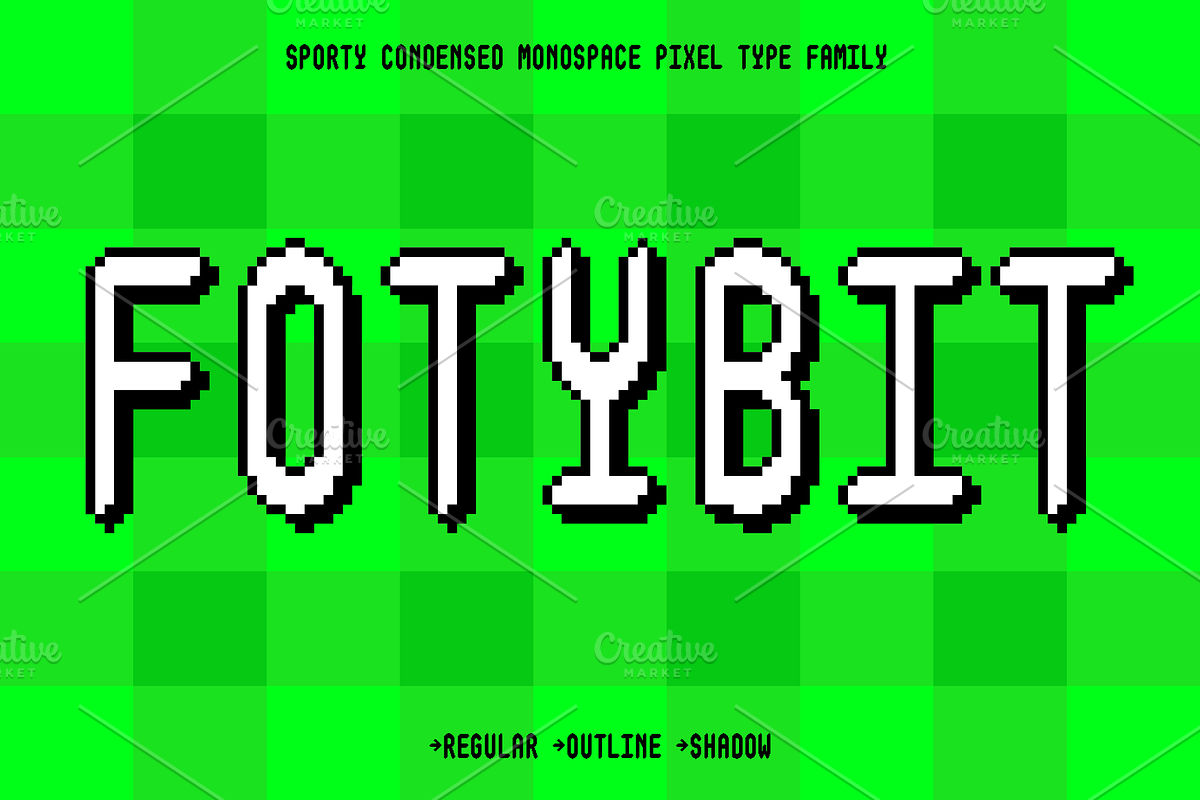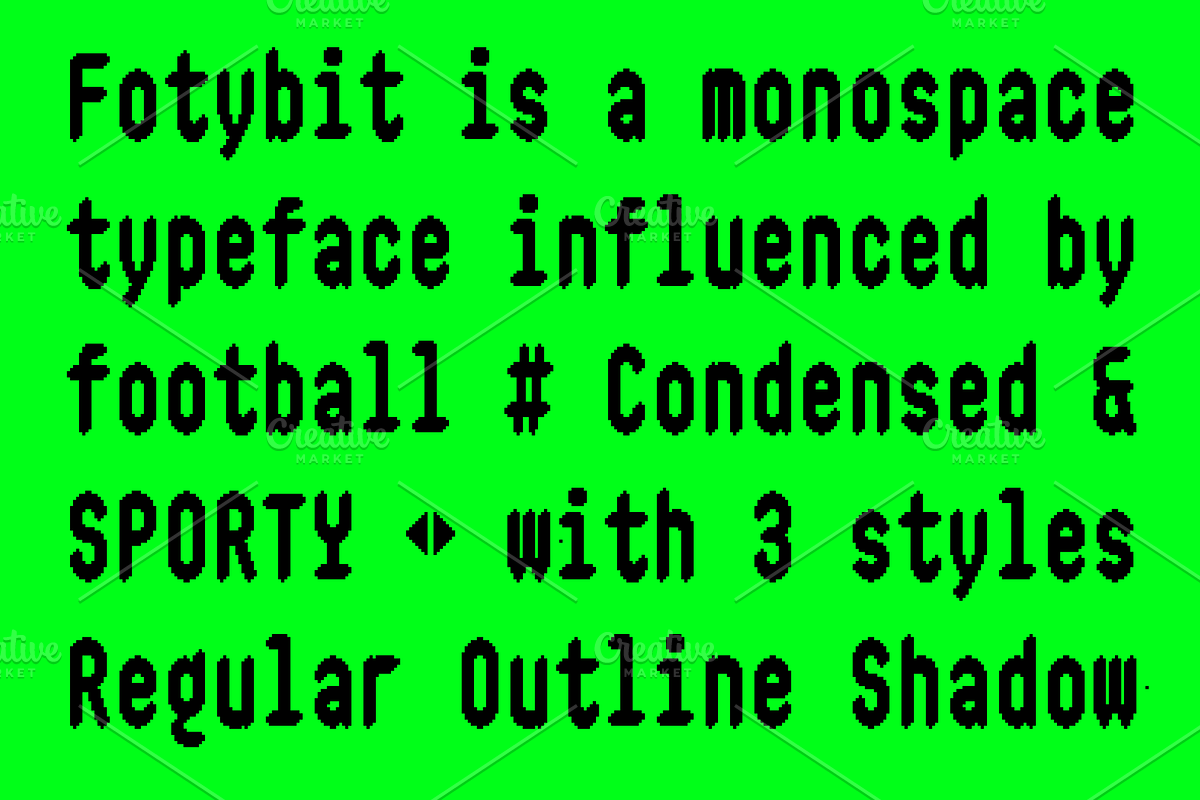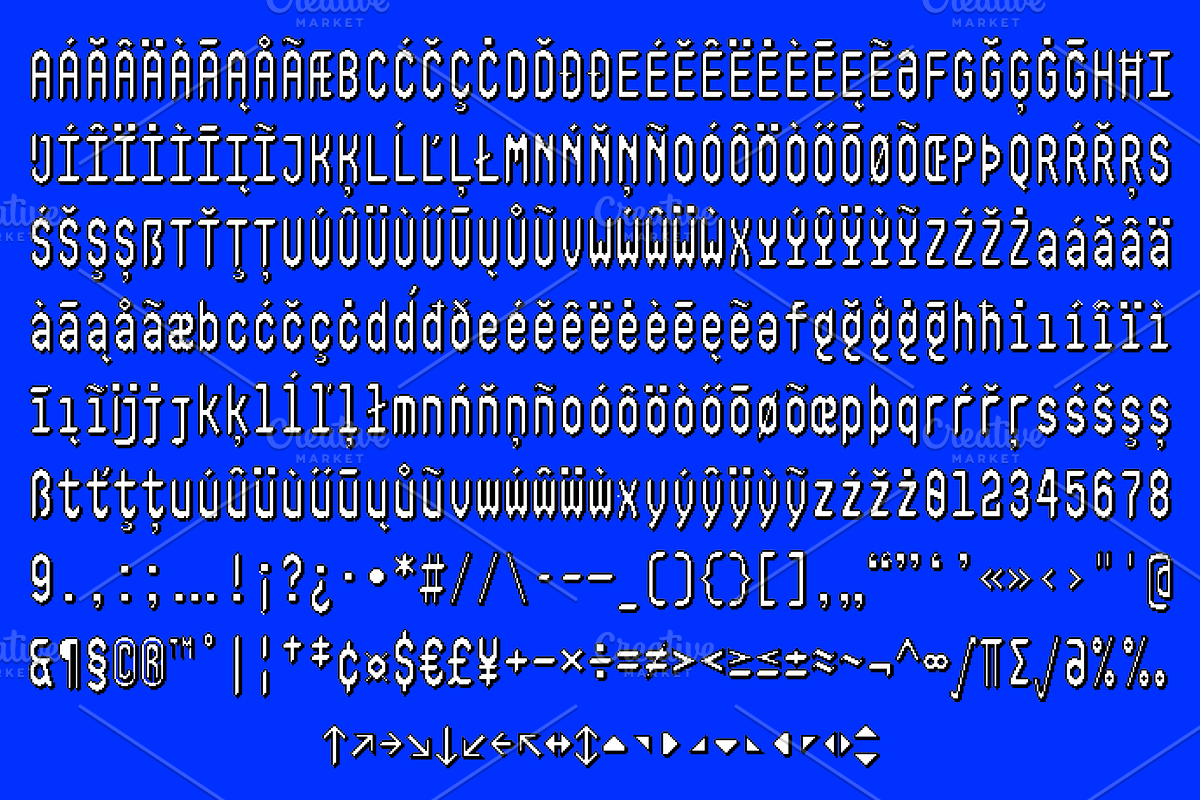
Fotybit - Mono Pixel Condensed
Fotybit
Fotybit is a condensed monospace pixel font with a sporty and dynamic vibe, inspired by the energy of football. Its clean lines and grid-based structure deliver a retro yet modern look, making it perfect for digital scoreboards, game designs, sports branding, and creative headlines.
Pixel Precision: A pixelated style that evokes the charm of retro gaming and digital displays.
Sporty Aesthetic: Designed with a compact and athletic feel, ideal for sports-themed projects.
Multilingual Support: Includes a wide range of characters to accommodate various languages.
Font Variations: Available in Regular, Outline, and Shadow styles for versatile use.
With Fotybit, you can combine the thrill of the game with a bold, digital edge, creating standout designs for any project.